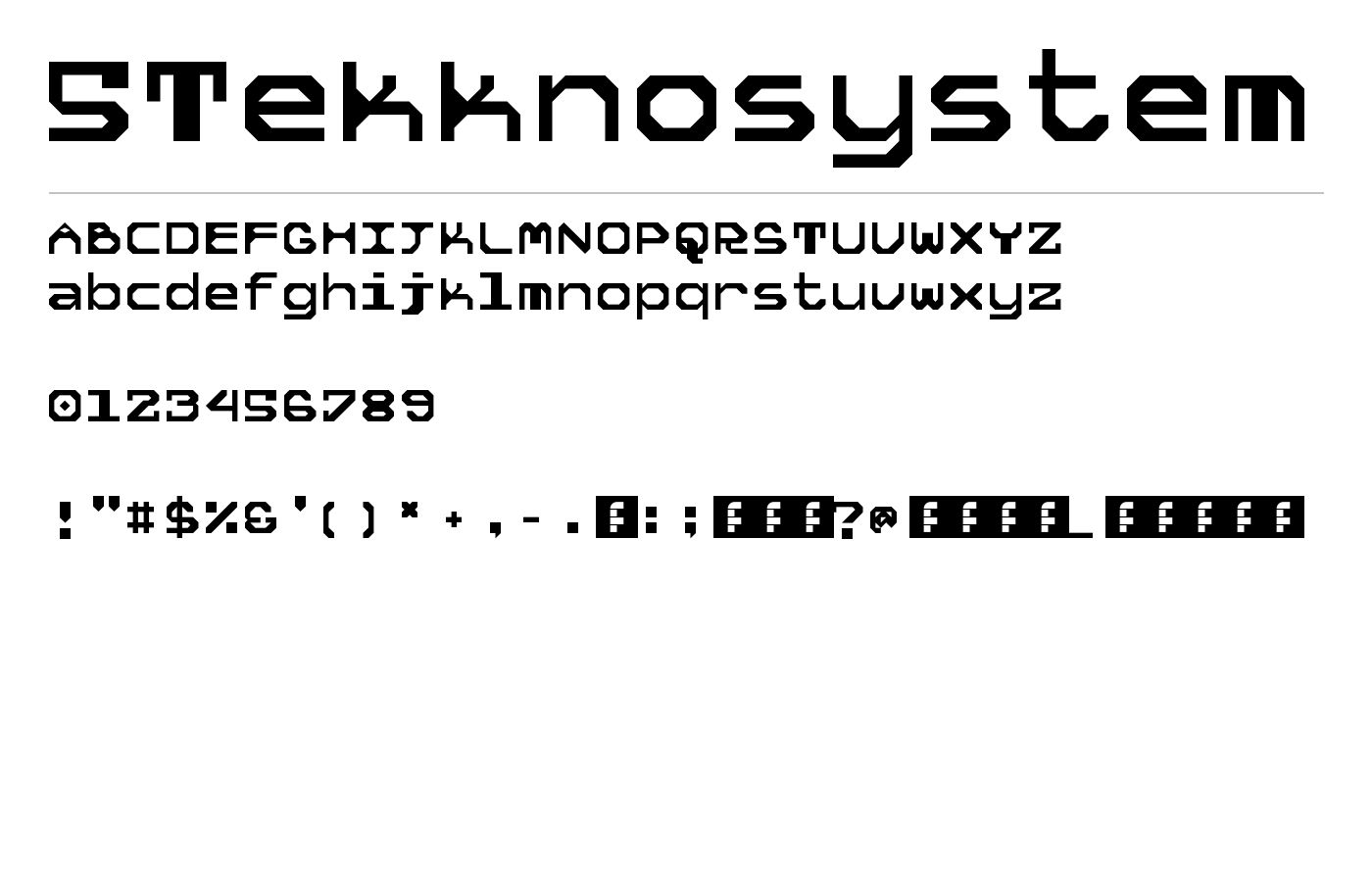
5Tekknosystem is a bold, geometric sans serif font with a tech-inspired, blocky design that features sharp angles and a distinctly digital feel. Its consistent stroke weight and squared shapes give it a futuristic, mechanical personality, making it ideal for technology branding, digital interfaces, or sci-fi themed projects. This font works best in headlines and logos where a strong, modern, and industrial impression is desired.
| Font family | 5Tekknosystem Font |
| Designer | Noah - 10 year old typomaniac |